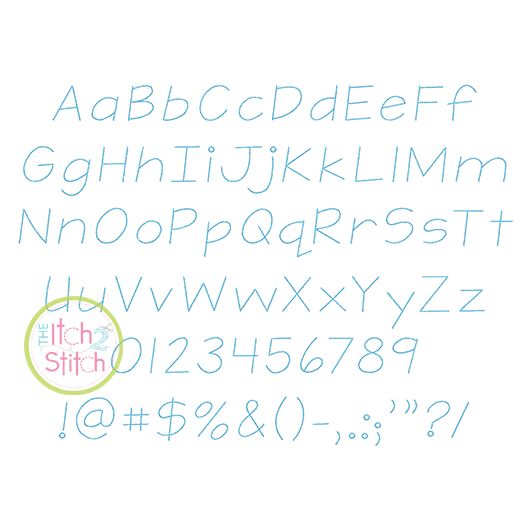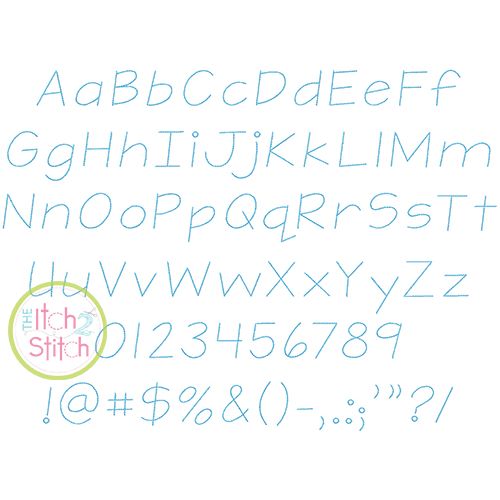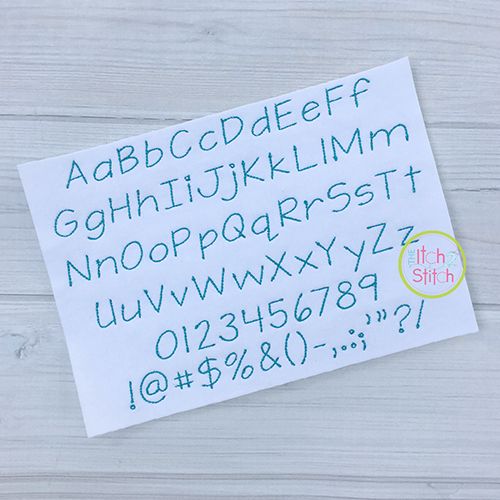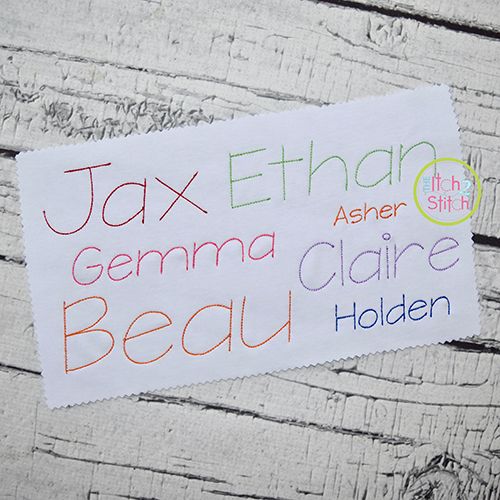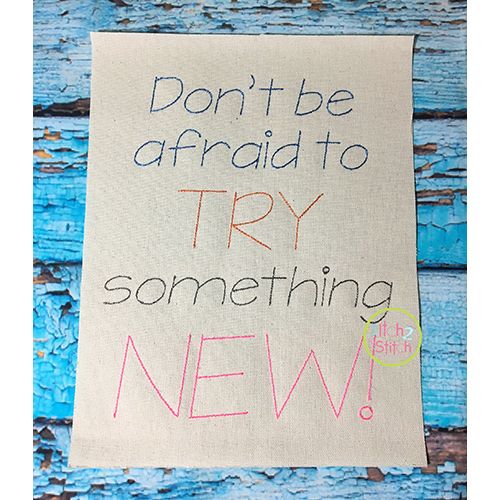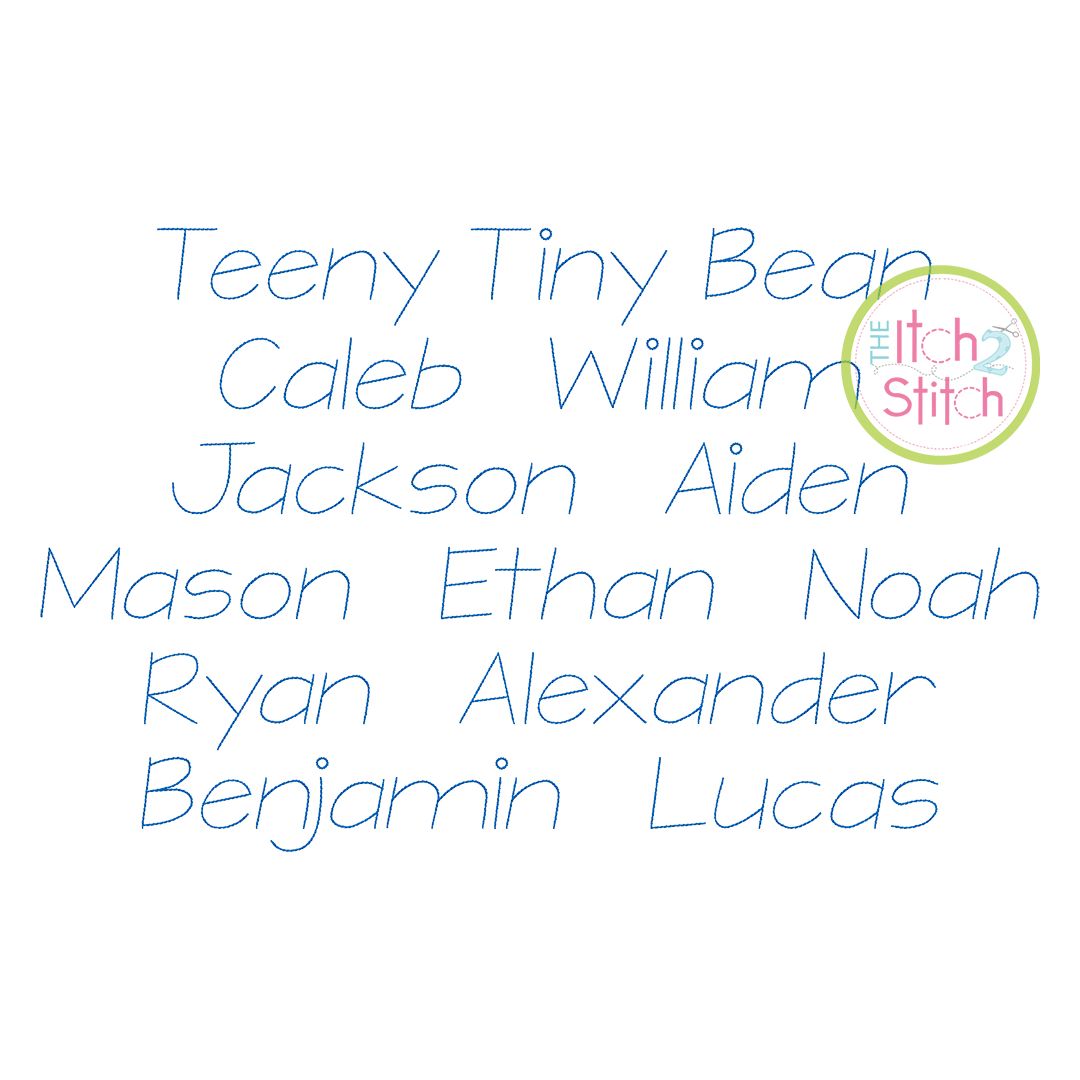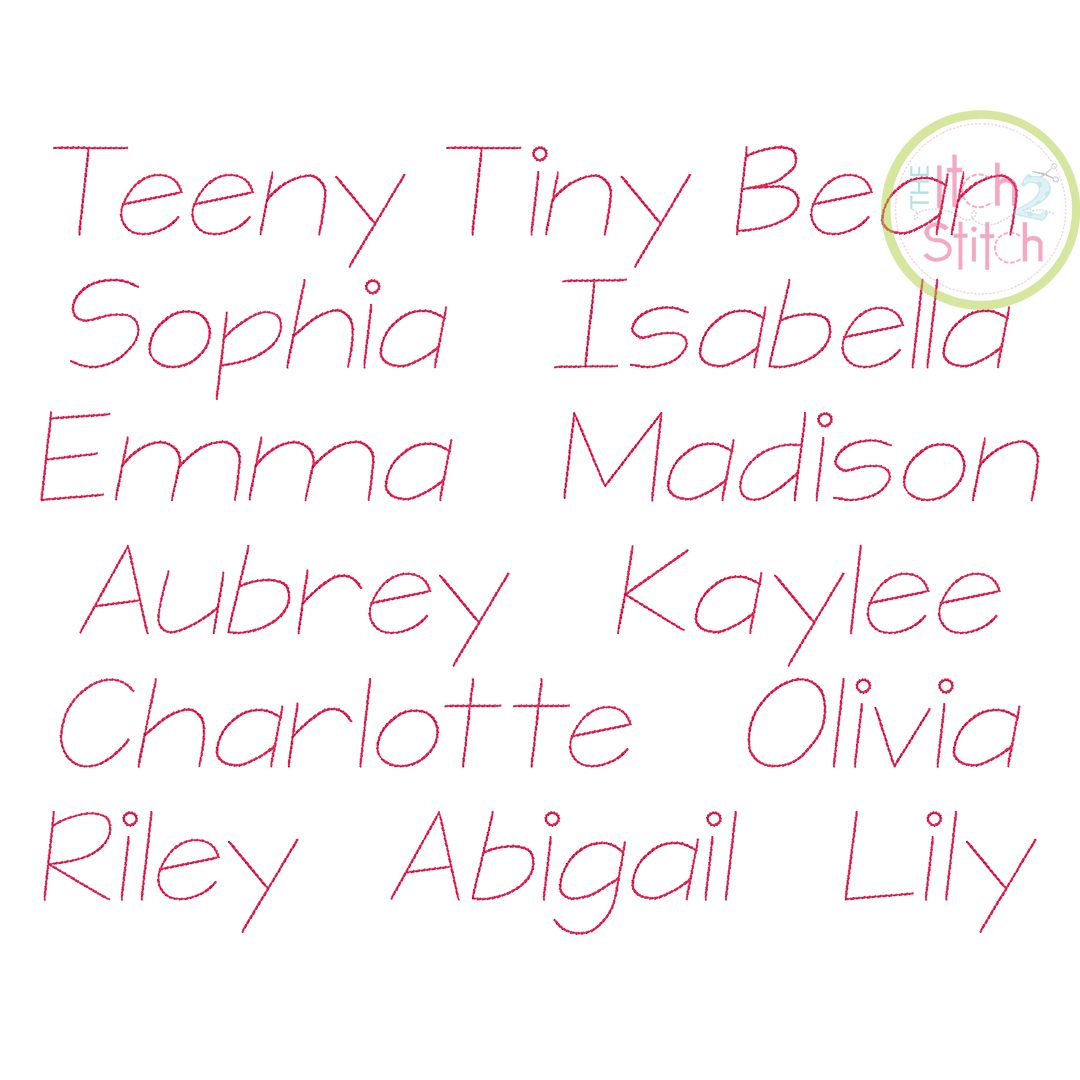
Teeny Tiny Bean Stitch Embroidery Font
This is a three-pass backstitch font originally designed to stitch on fabric, not card stock. Another version, Teeny Tiny Greeting Card Font, designed and tested on watercolor paper is sold separately.